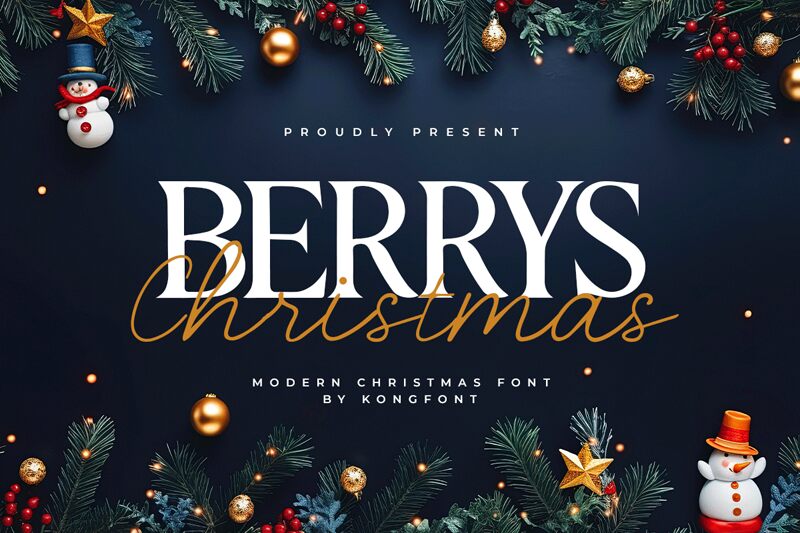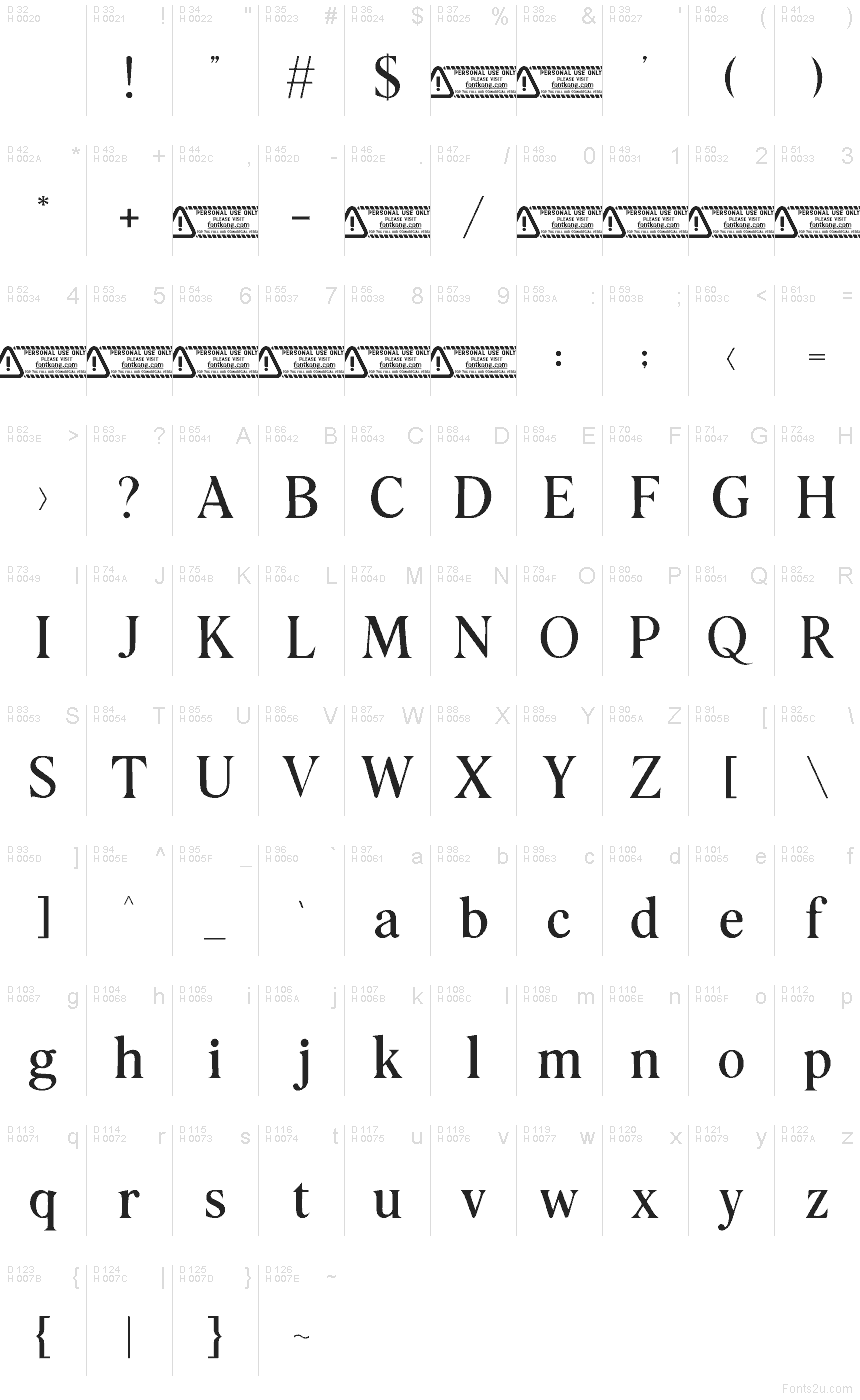
Berrys Christmas font by Kong Font is a free festive serif typeface that captures the warmth of handwritten holiday cards with the polish of classic print. Its narrow forms, neat curves, and gently flared strokes feel like letters pressed into thick, snowy paper—elegant without becoming stuffy. There’s a subtle storybook charm here, giving your seasonal designs a cozy, timeless voice.
Using Berrys Christmas, you can give instant holiday character to greeting cards, gift tags, invitations, seasonal logos, packaging, and social media graphics. The spacing holds together nicely in short phrases and titles, so it shines in headlines and wordmarks. For longer text, pair this free font with a clean sans serif in a lighter weight to keep things readable while letting the festive letterforms take center stage.